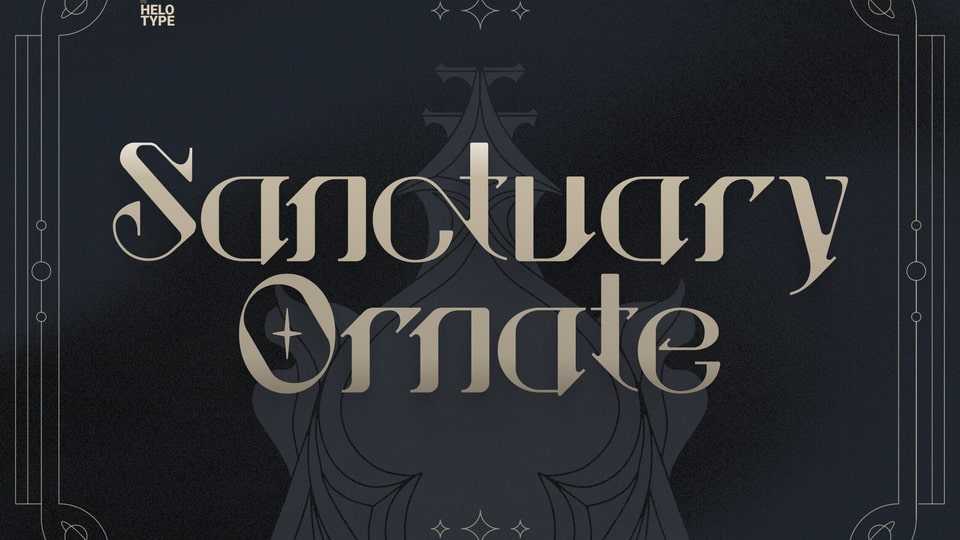
Download Sanctuary Ornate font, a majestic display typeface, meticulously crafted to infuse your projects with unparalleled elegance and an air of timeless luxury.
Designer: Helotype